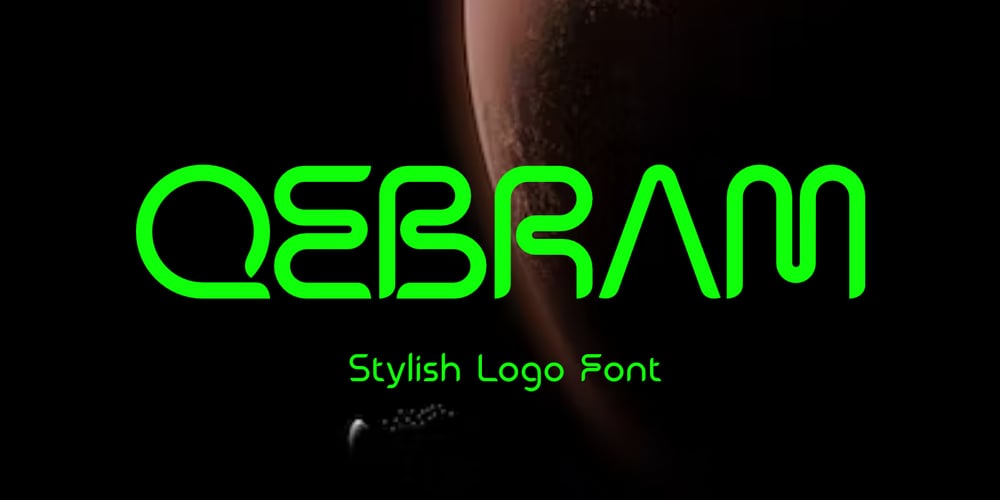
Qebram Font Family was designed by Saiful Anwar and published by Sealoung. Qebram contains 1 styles and family package options. Qebram is a custom font for your logo & branding.This font is a very strong and excellent branding font that can be used in any company that wants to make its image look modern and high-tech because every character is designed for a good logo. So let’s create your own logo with this font.You can easily create & use your quality logo with just a Desktop License.Qebram Font is ready with: Ligatures Support multilingual Ready with Lowercase and Uppercase characters Numbers Punctuation Hope you enjoy our fonts and if you have any questions feel free to message & I’m happy to help ๐